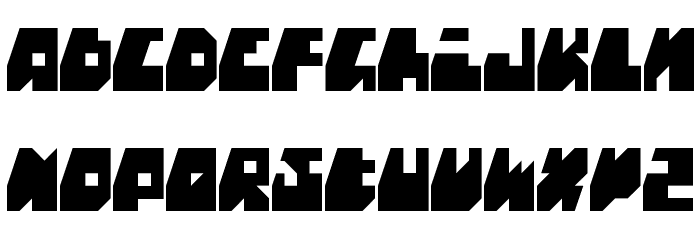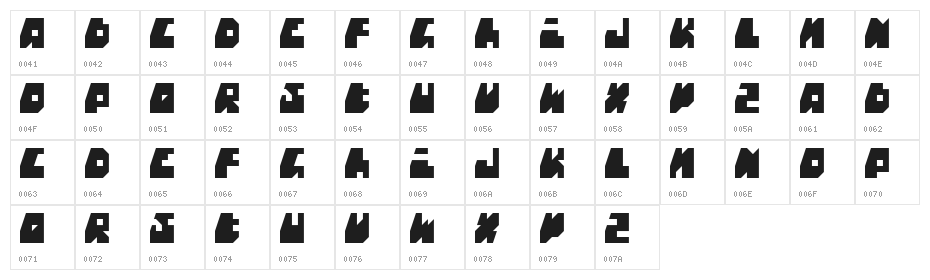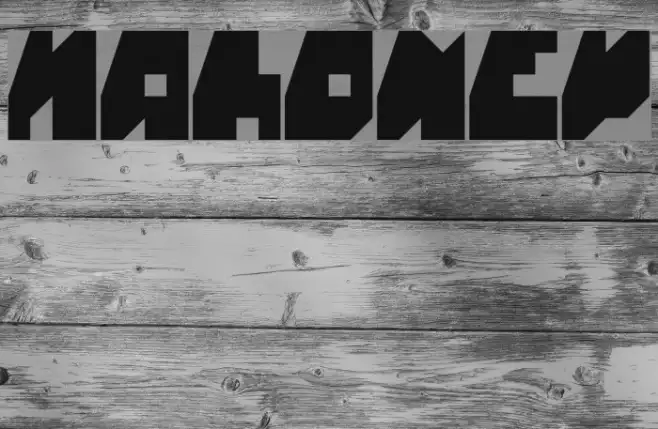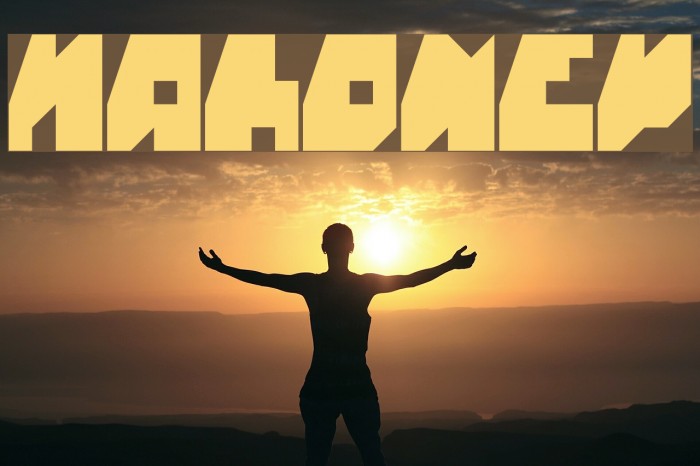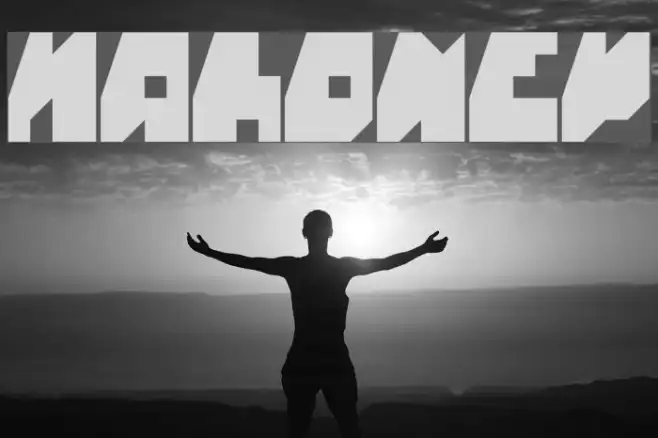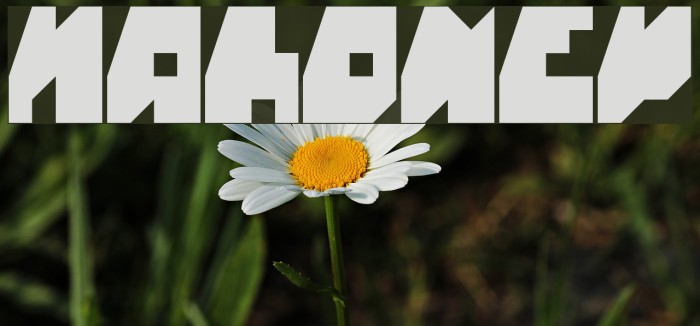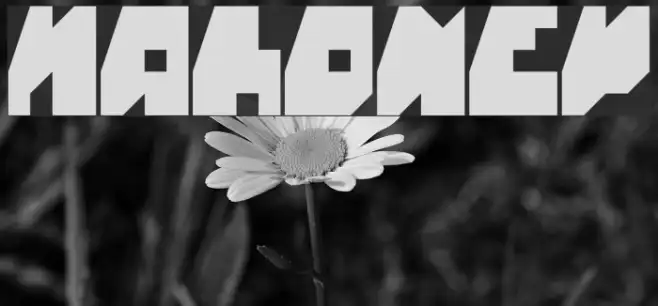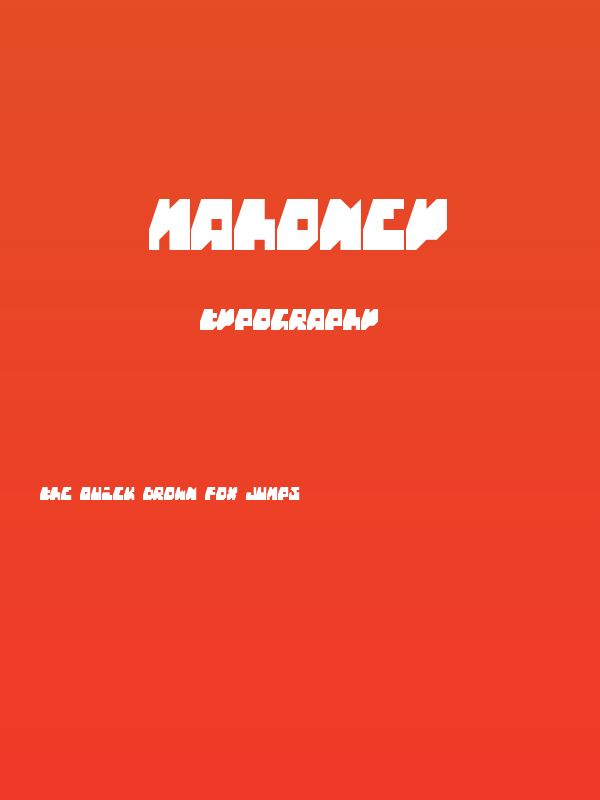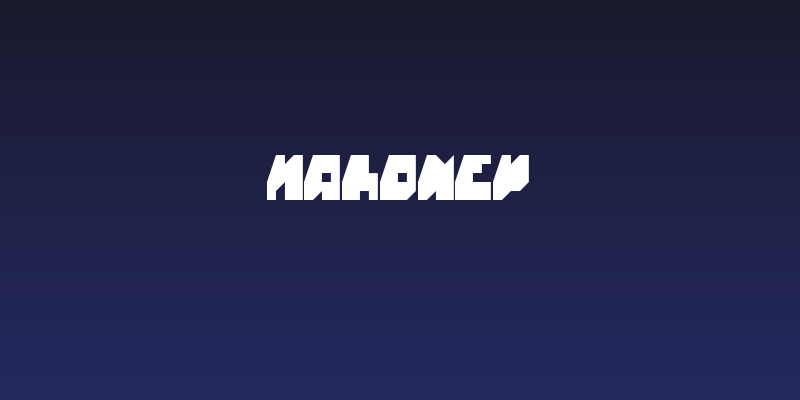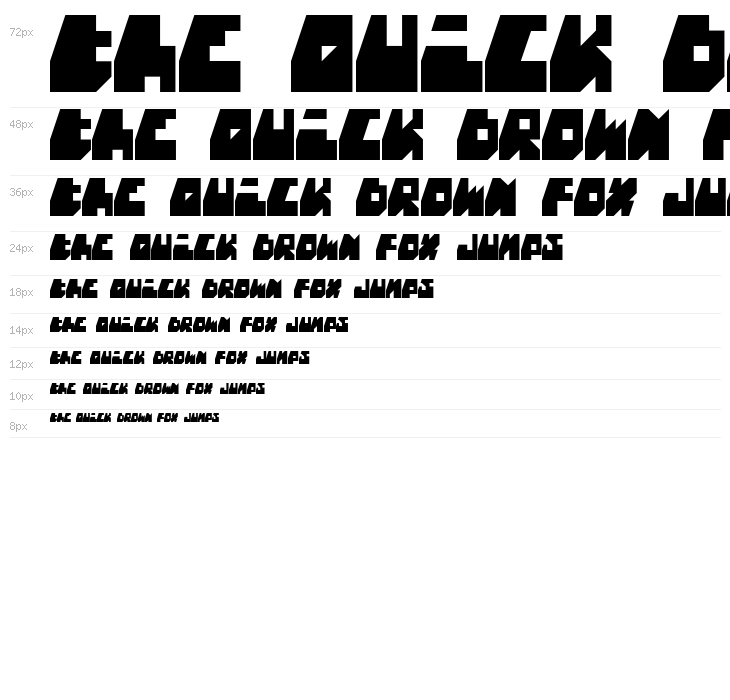
mahoney Font
mahoney Description
This font features a bold and geometric design, characterized by its sharp angles and blocky appearance. Each letter is constructed with a series of straight lines and sharp corners, giving it a futuristic and industrial feel. The uppercase and lowercase letters maintain a consistent style, with a strong emphasis on symmetry and uniformity. The numbers and special characters follow the same design principles, ensuring a cohesive look across all glyphs. This font's unique style makes it stand out, making it ideal for projects that require a modern and edgy aesthetic.
| Proposed Projects | Ideal for sci-fi themed designs, video game titles, posters, and branding that requires a modern and edgy look. |